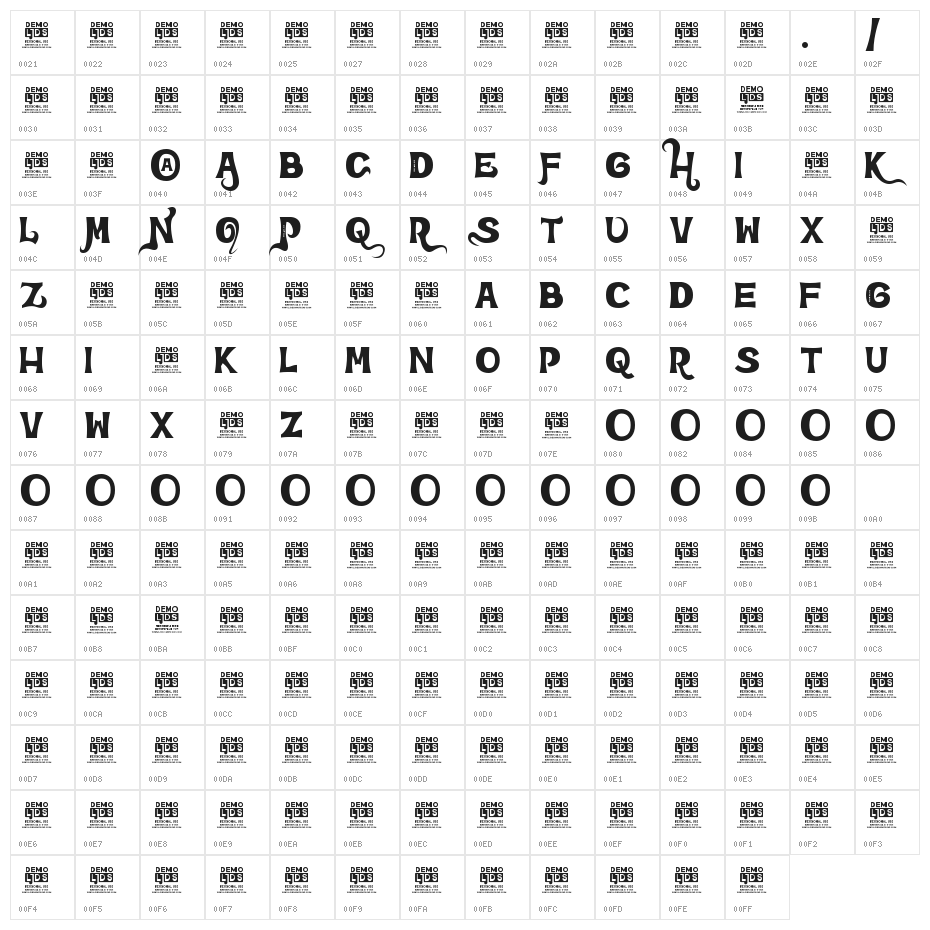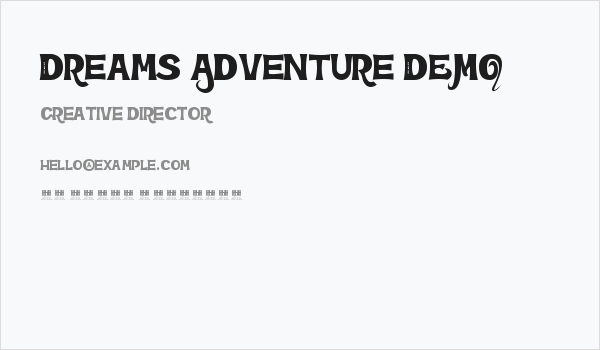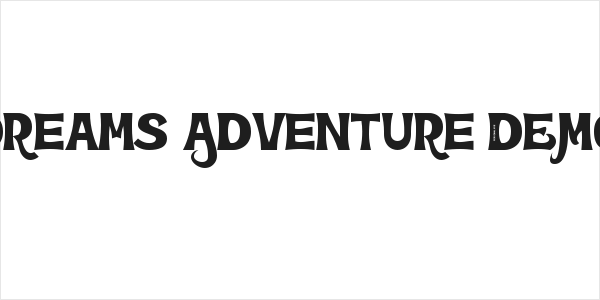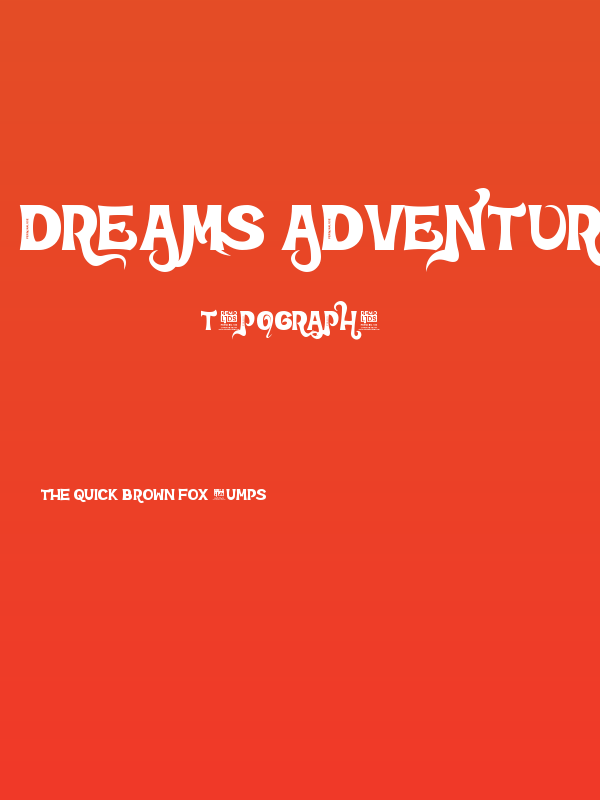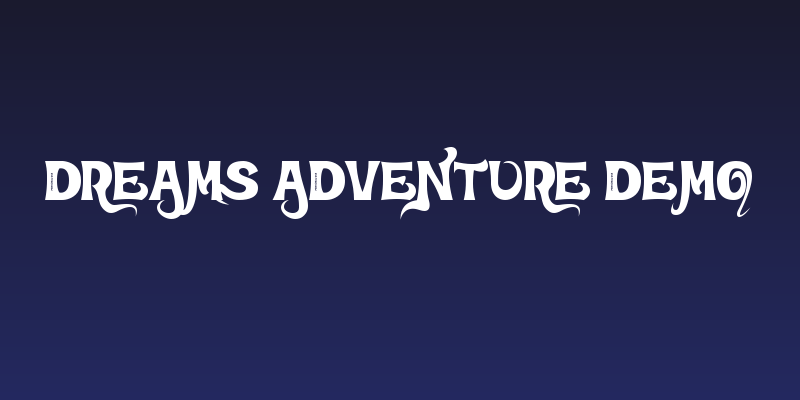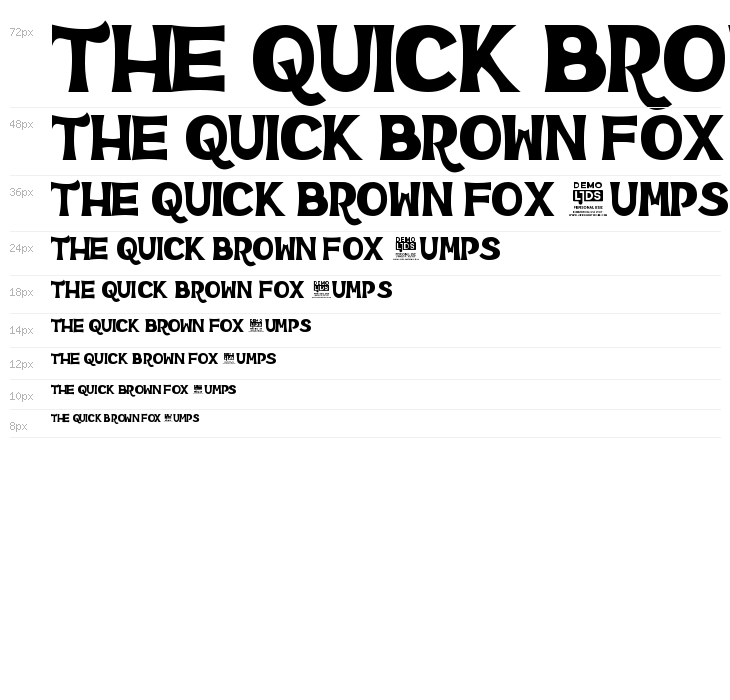
Dreams Adventure DEMO Font
Dreams Adventure DEMO Description
This font features a bold and adventurous style with a playful twist. The uppercase letters have unique, whimsical flourishes that add a sense of movement and excitement. The characters are bold with varying stroke widths, giving them a dynamic and eye-catching appearance. The font's decorative elements make it suitable for creative and adventurous projects, adding a touch of fantasy and fun. The overall design is both bold and imaginative, perfect for capturing attention and conveying a sense of adventure.